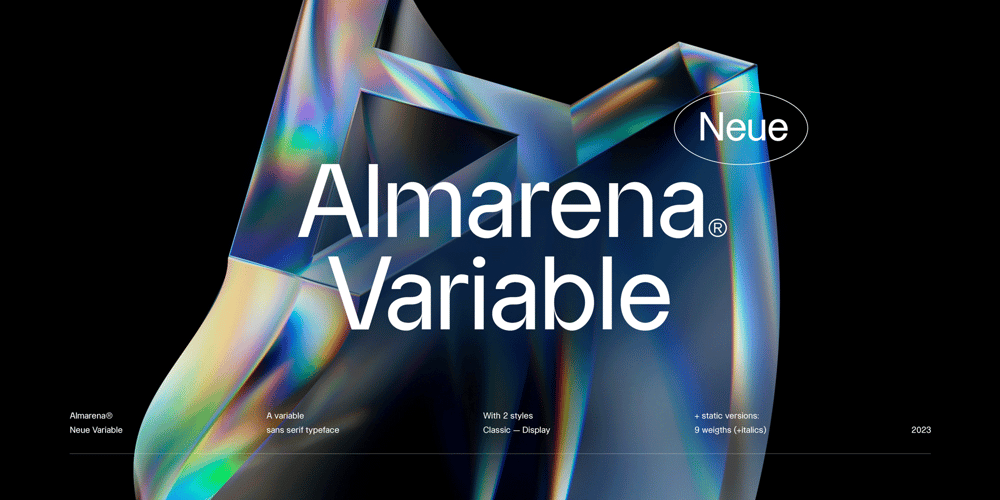
Almarena Neue
Almarena Neue font
Almarena Neue Font Family was designed by Jérémie Gauthier and published by Almarena. Almarena Neue contains 37 styles and family package options. Introducing Almarena® Neue Variable, the evolution of Almarena® Typeface, which we created in 2020. Almarena® Neue is a modern sans serif typeface that combines legibility, impact and contrast. This new version of Almarena is variable with 3 axes: Weight – Display – Slant. It is also available as a static version in 9 weights (+ italics) for each style (Classic & Display) with several alternatives. Almarena Neue® supports 94 languages and contains 565 glyphs for each weight.